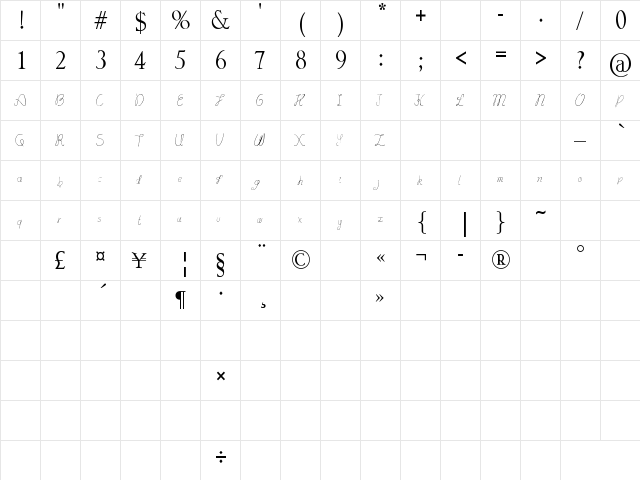
lydeke Handwrithing Regular
Design Context for lydeke Handwrithing Typeface
lydeke Handwrithing brings a calligraphic fluidity to the page — its connecting strokes and expressive curves give it an unmistakably human quality. Its slender proportions lend an understated elegance to any composition.
Font Pairing: Combine lydeke Handwrithing with a simple geometric sans for maximum contrast — the tension between flowing curves and clean structure is a classic typographic pairing.
Pro Tip: Use lydeke Handwrithing for short runs of text — names, titles, or taglines. Extended body copy in script faces tires the eye quickly.